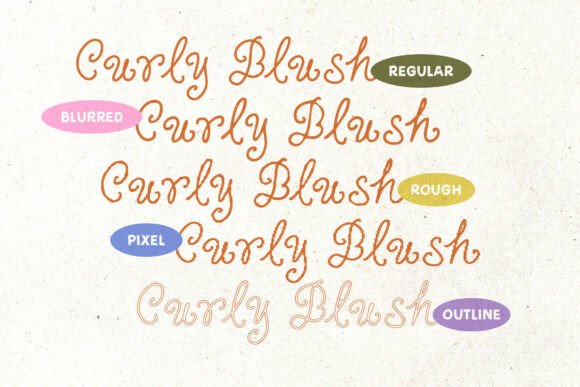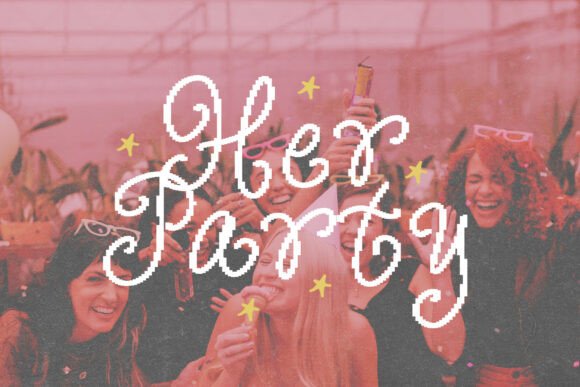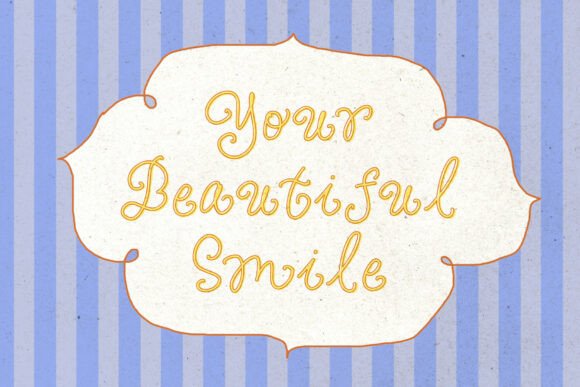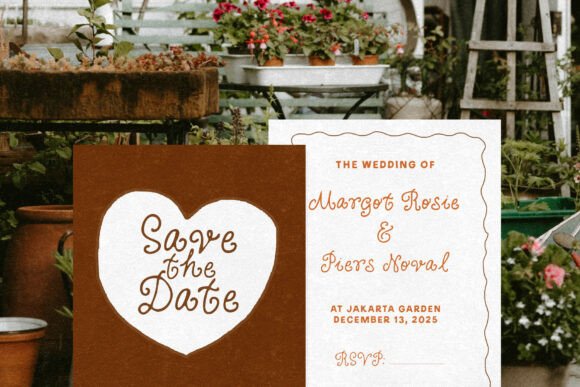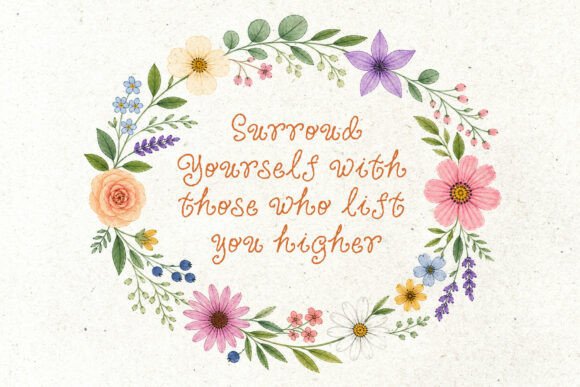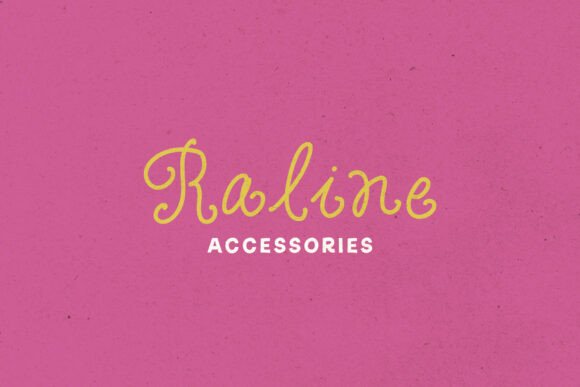
Introducing Curly Blush Font: The Ultimate Choice for Playful and Charming Designs
Are you tired of using the same old fonts for your designs? Do you want to add a touch of whimsy and magic to your brand’s visual identity? Look no further than Curly Blush Font, a delightful typeface that combines cute curly strokes with a soft handwritten feel. In this article, we’ll dive into the world of Curly Blush Font and explore its features, benefits, and uses.
The Charm of Curly Blush Font
Curly Blush Font is a beautiful, dreamy typeface that evokes the feeling of a scrapbook come to life. The letters are playful, sweet, and full of tiny magical vibes, making every word feel warm and charming. The font’s curly strokes and soft handwritten feel give it a unique and feminine touch that’s perfect for beauty brands, girly logos, invitations, cute packaging, and social posts.
5 Fun Versions to Mix and Match
One of the best things about Curly Blush Font is that it comes in 5 fun versions, allowing you to mix and match to create a unique look that suits your brand’s style. Whether you want to add a touch of elegance or a dash of playfulness, Curly Blush Font has got you covered. With its versatility and flexibility, you can use it to create a wide range of designs, from simple and minimalist to complex and ornate.
Perfect for Beauty Brands and Girly Logos
Curly Blush Font is an ideal choice for beauty brands and girly logos that want to convey a sense of femininity and charm. The font’s soft, curly strokes and playful feel make it perfect for brands that want to add a touch of whimsy and magic to their visual identity. Whether you’re a makeup artist, a skincare specialist, or a hair stylist, Curly Blush Font can help you create a brand that stands out from the crowd.
Use it for Invitations, Packaging, and Social Posts
Curly Blush Font is not just limited to logos and branding. You can also use it to create beautiful invitations, packaging, and social posts that feel light, lovely, and a little sparkly. Whether you’re planning a wedding, a birthday party, or a baby shower, Curly Blush Font can help you create invitations that are both elegant and playful. Similarly, you can use it to create cute packaging for your products or social posts that engage and delight your followers.
Benefits of Using Curly Blush Font
So why should you choose Curly Blush Font for your designs? Here are just a few benefits:
- Unique and eye-catching: Curly Blush Font is a one-of-a-kind typeface that will make your designs stand out from the crowd.
- Feminine and charming: The font’s soft, curly strokes and playful feel make it perfect for brands that want to convey a sense of femininity and charm.
- Versatile: Curly Blush Font comes in 5 fun versions, allowing you to mix and match to create a unique look that suits your brand’s style.
Tips for Using Curly Blush Font
Here are a few tips for using Curly Blush Font in your designs:
- Pair it with neutral colors: Curly Blush Font looks best when paired with neutral colors like white, beige, or pastel shades.
- Experiment with different versions: Try out different versions of Curly Blush Font to find the one that works best for your design.
- Add embellishments: Consider adding embellishments like flowers, hearts, or stars to give your design an extra touch of whimsy and magic.
In conclusion, Curly Blush Font is a beautiful, playful, and charming typeface that’s perfect for designers and crafters who want to add a touch of whimsy and magic to their designs. With its 5 fun versions, versatility, and ease of use, Curly Blush Font is an ideal choice for beauty brands, girly logos, invitations, cute packaging, and social posts. So why wait? Give Curly Blush Font a try today and see how it can transform your designs!